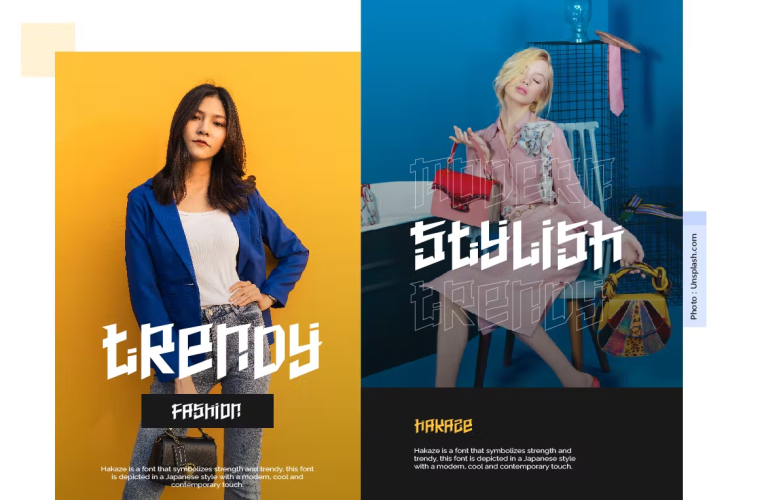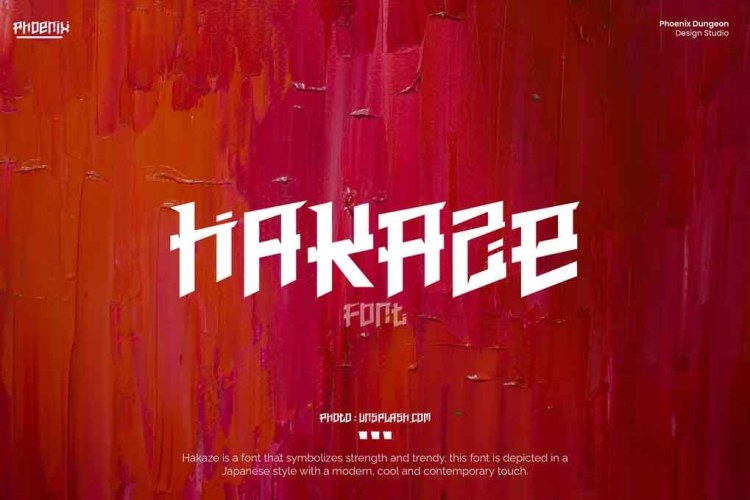
Hakaze Font
Hakaze is a font that symbolizes strength and trendy, this font is depicted in a Japanese style with a modern, cool, and contemporary touch.
Event & seasonal design
Hakaze Font suits themed posters, holiday campaigns, festival identities and party invitations.
Game & entertainment titles
Decorative letterforms are a natural fit for game logos, movie-style titles and merch.
Packaging accents
Use Hakaze Font sparingly for product names or flavour labels that need personality.
Hakaze Font is a Decorative Fonts typeface tagged Contemporary, Decorative, Decorative Fonts, Modern. It works well for headlines, logos, posters, social media graphics and branding projects that need a distinctive decorative fonts look.